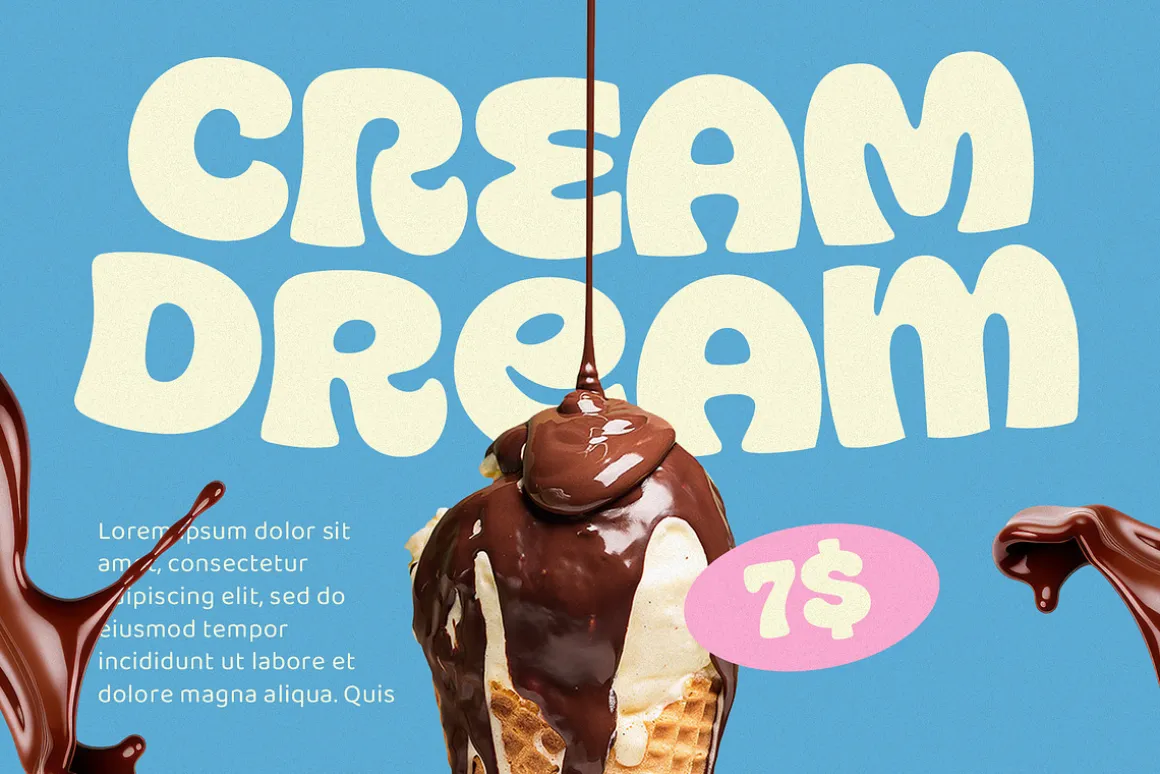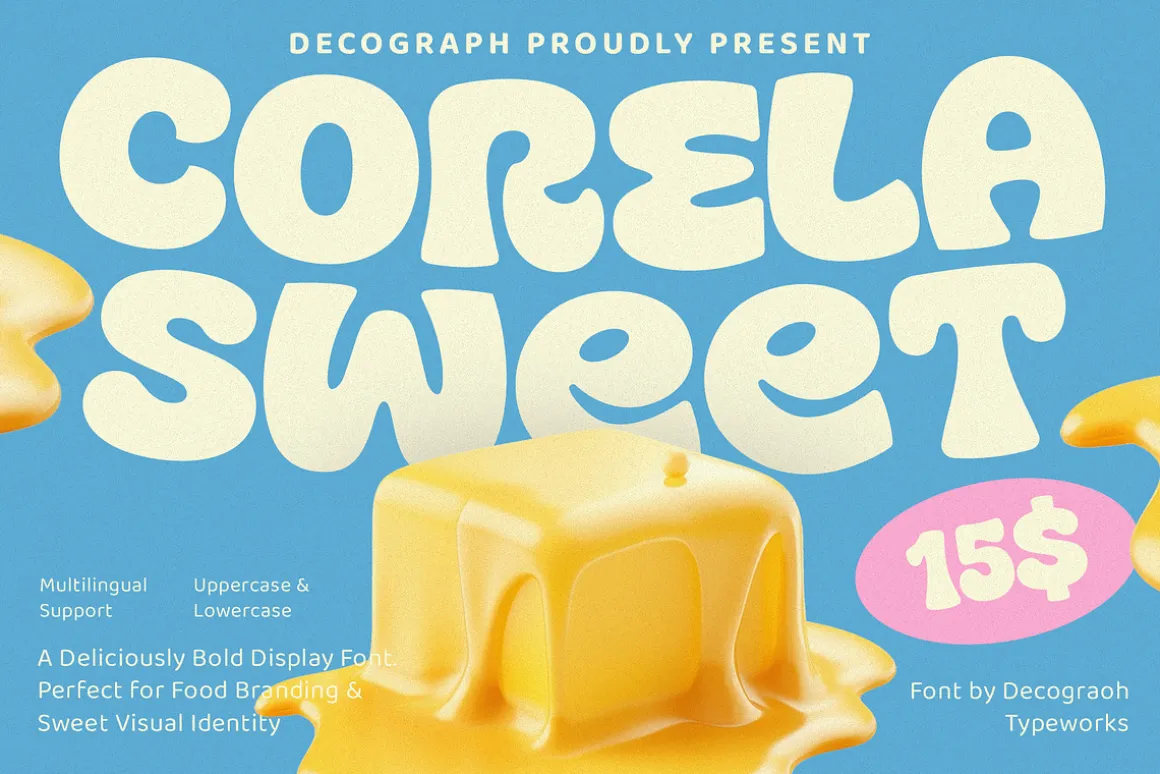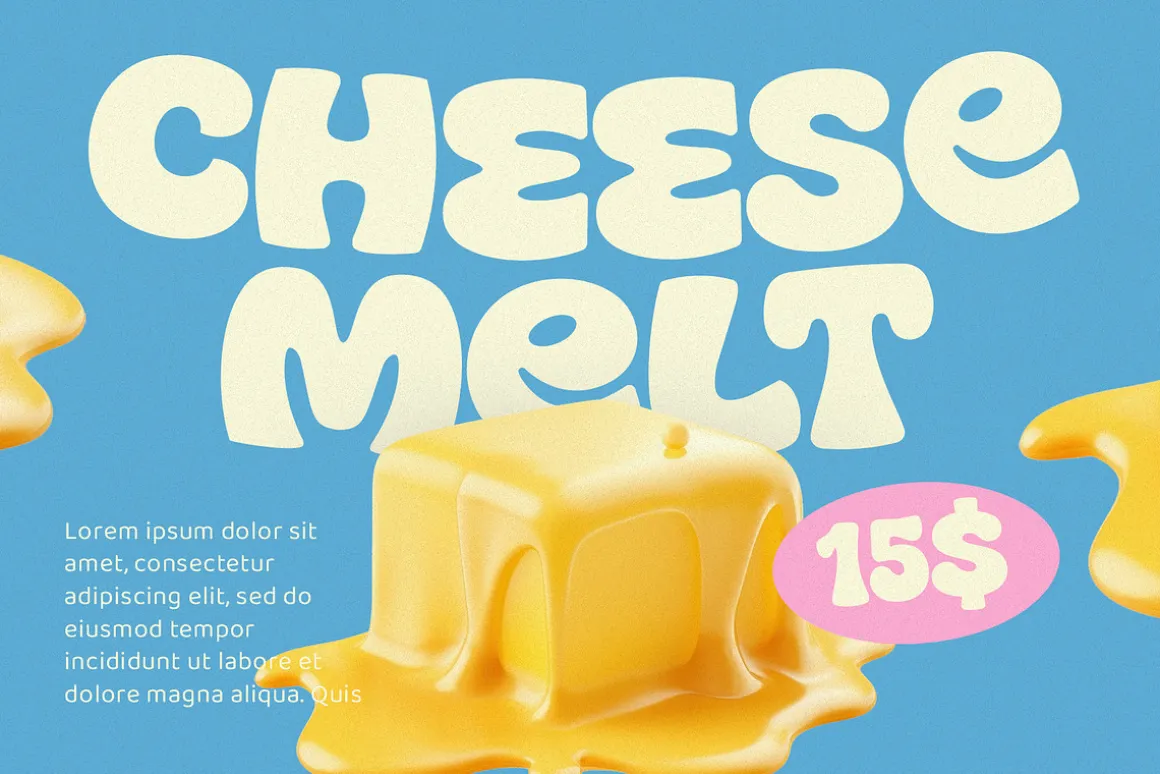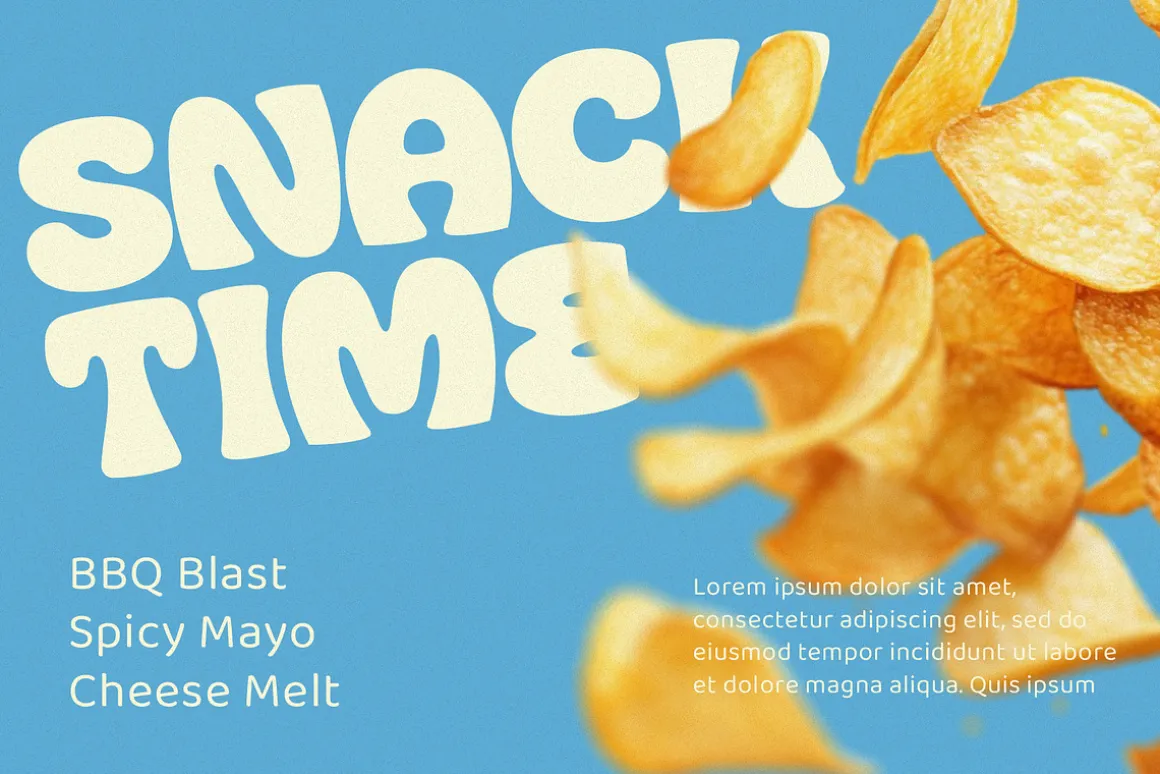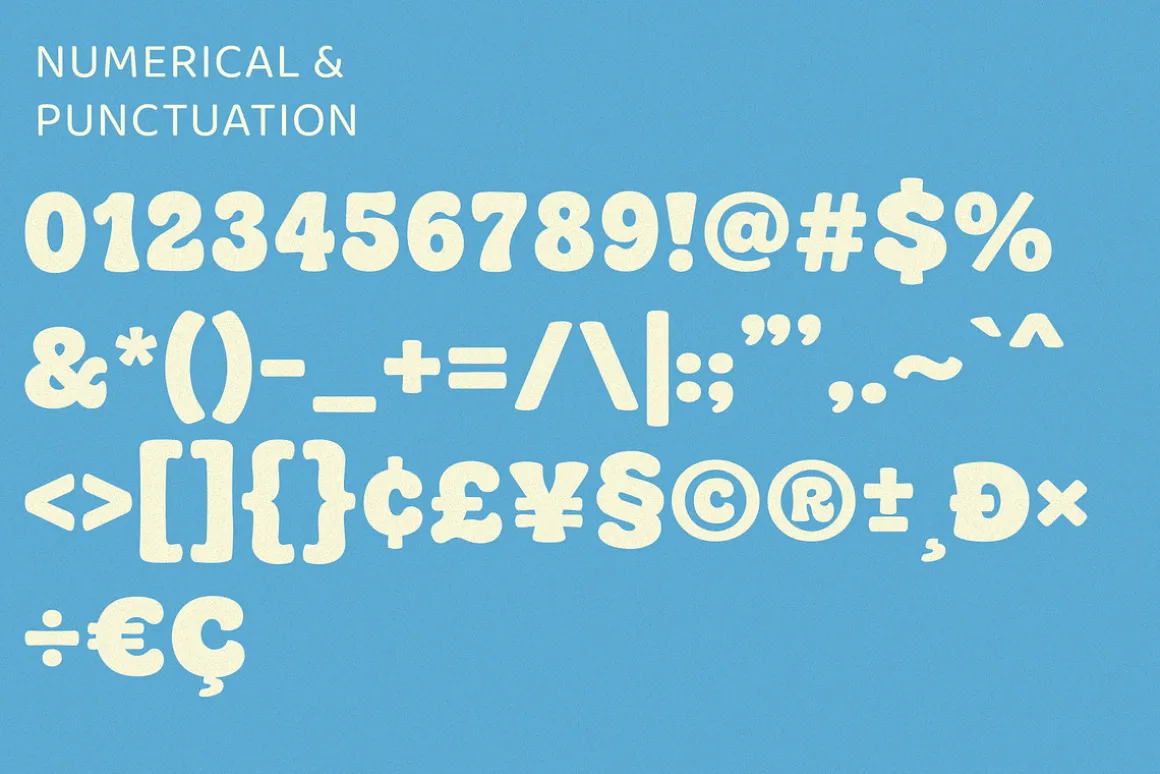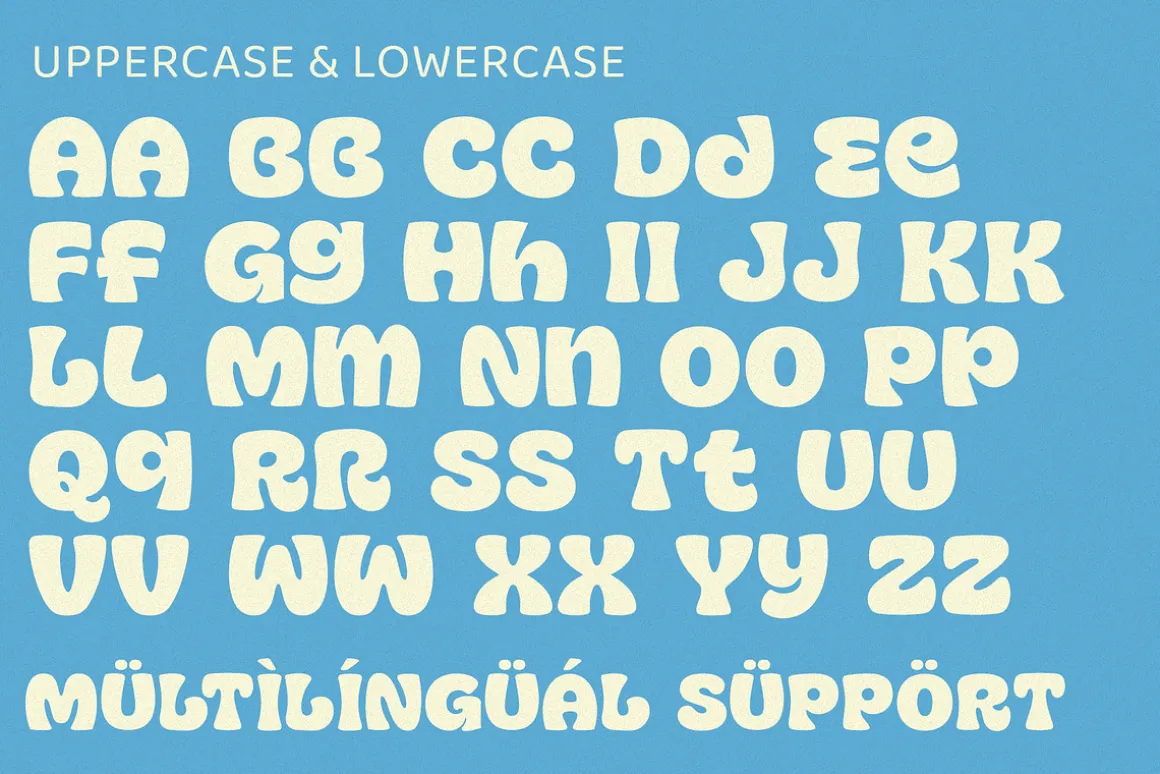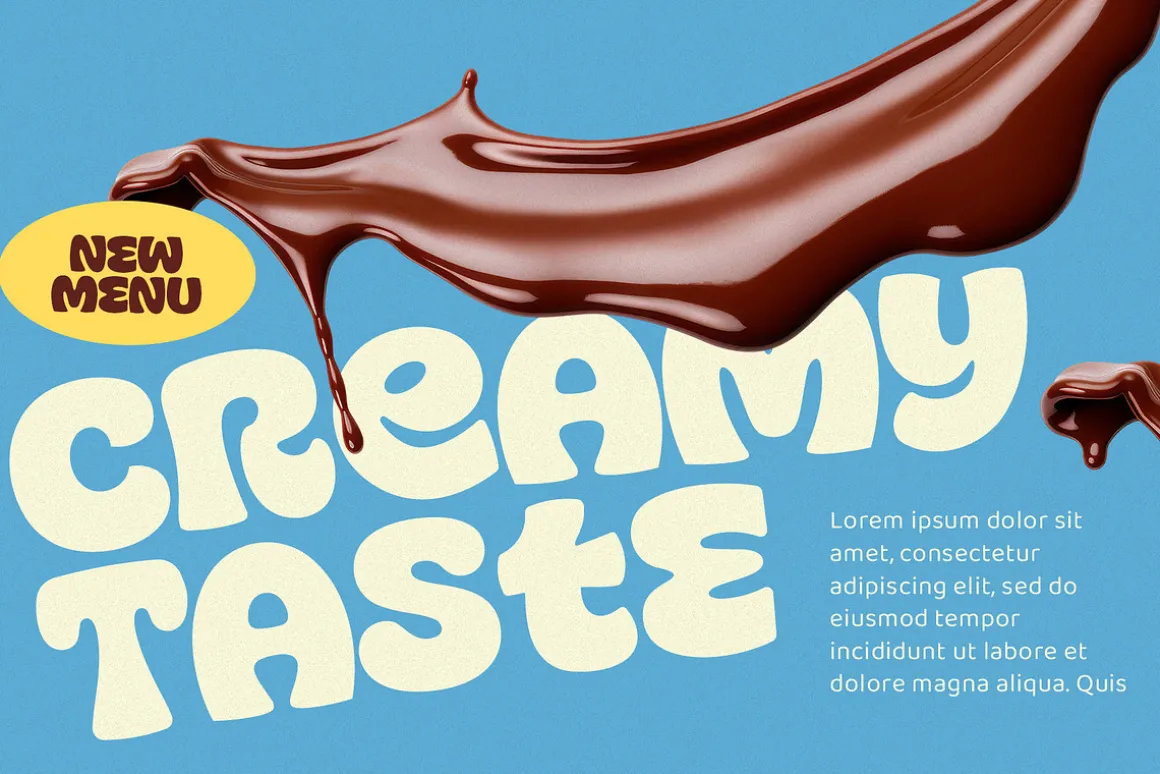
Corela Sweet – Playful Chunky Display
Corela Sweet is a delightfully bold display font that melts charm and personality into every letterform. With its soft, rounded edges and creamy, inflated shapes, this typeface captures a sweet, almost edible aesthetic—perfectly balancing fun and readability. The exaggerated curves and smooth flow give it a friendly, modern character that instantly grabs attention while maintaining a polished, professional feel.
- Uppercase & Lowercase
- Numbers & Punctuation
- Multilingual Support
- Smooth Kerning